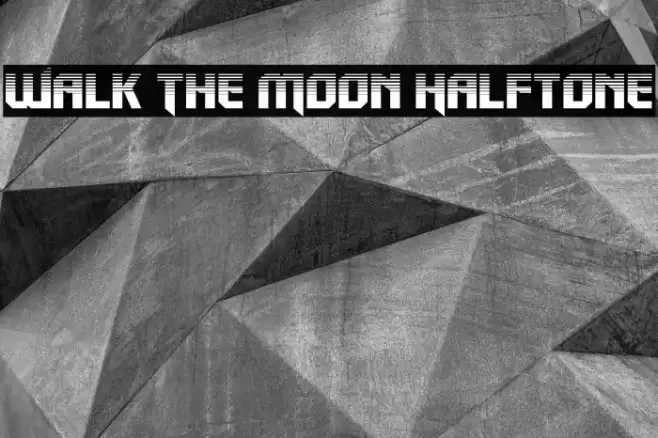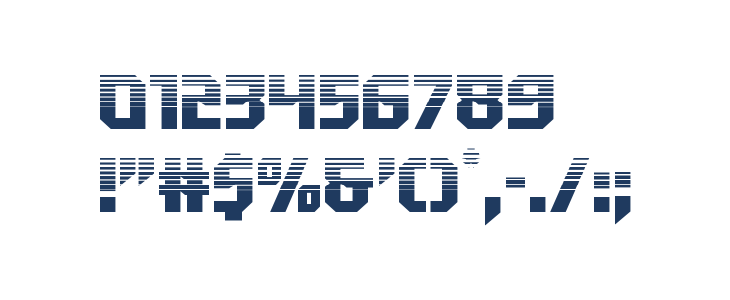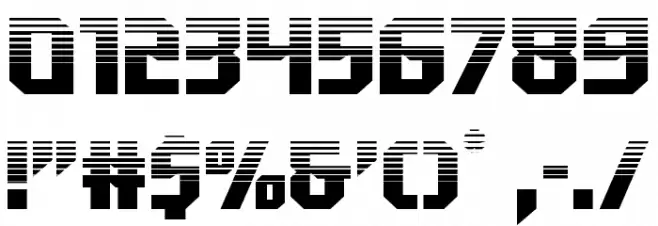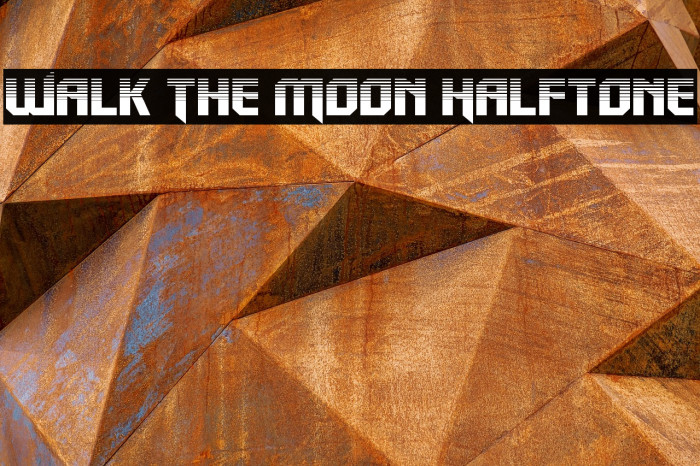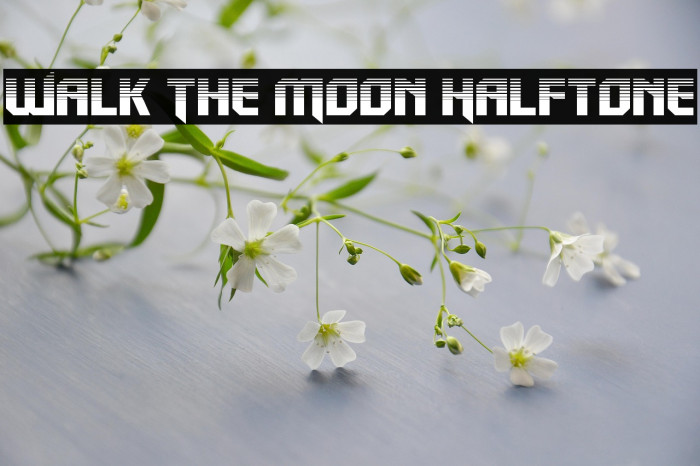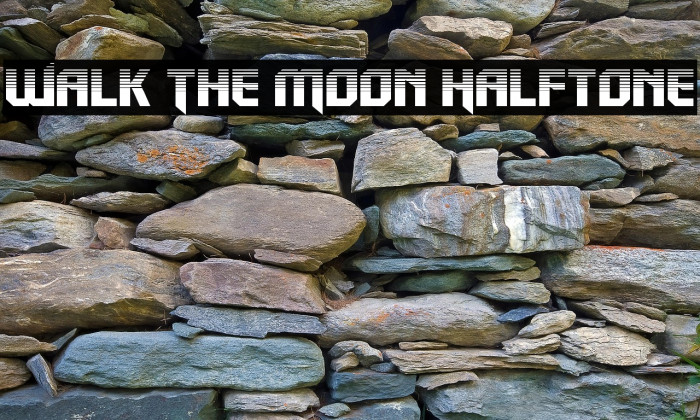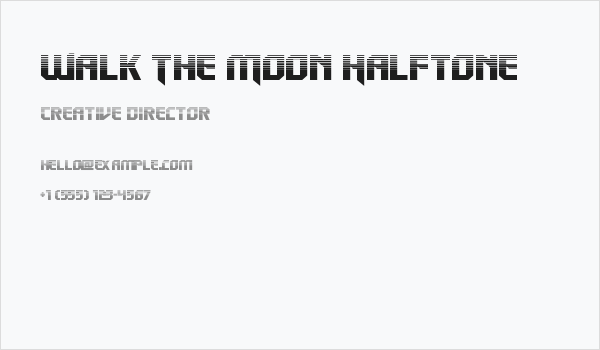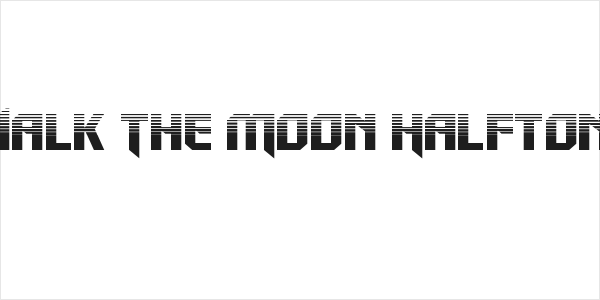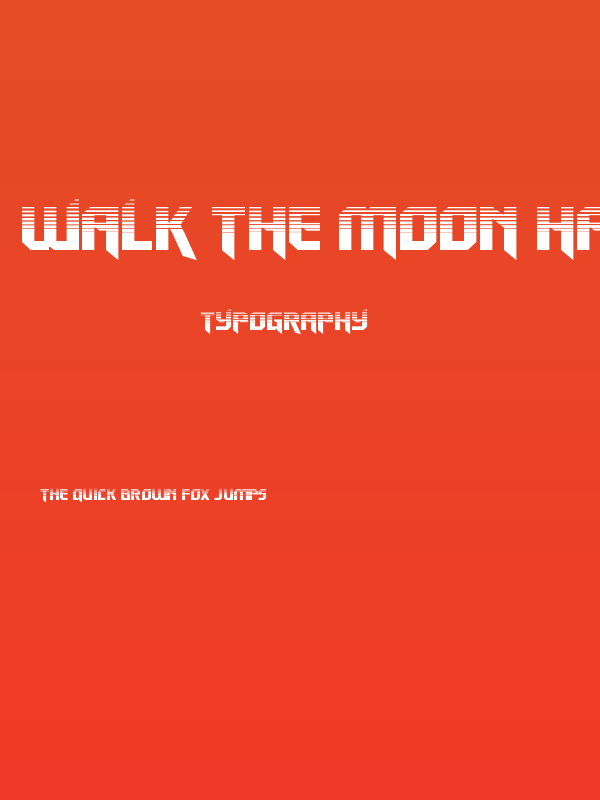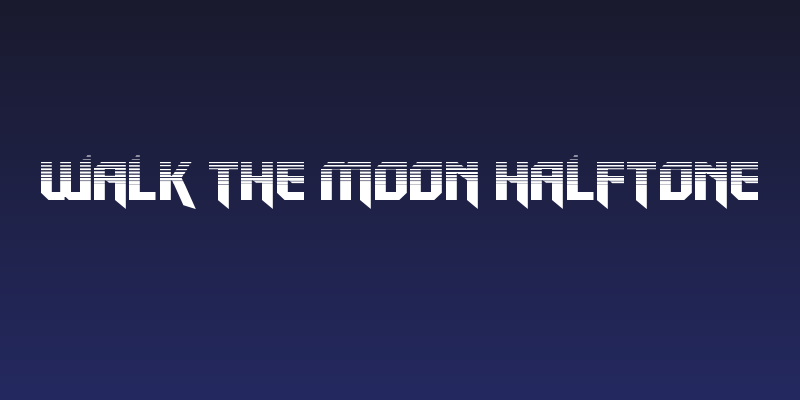
Walk The Moon Halftone Font
Walk The Moon Halftone Description
This font features a bold, geometric design with a distinct halftone effect, creating a sense of depth and movement. The characters are constructed with sharp angles and straight lines, giving it a futuristic and industrial feel. The halftone pattern is consistent across all characters, providing a unique texture that stands out in any design. The uppercase and lowercase letters maintain a uniform style, while the numerals and special characters complement the overall aesthetic. This font is ideal for projects that require a modern and edgy look.
A bold, geometric font with a halftone effect, perfect for modern designs from Regular fonts.
- Proposed Projects: Ideal for album covers, posters, branding, and digital artwork that require a modern and edgy aesthetic.